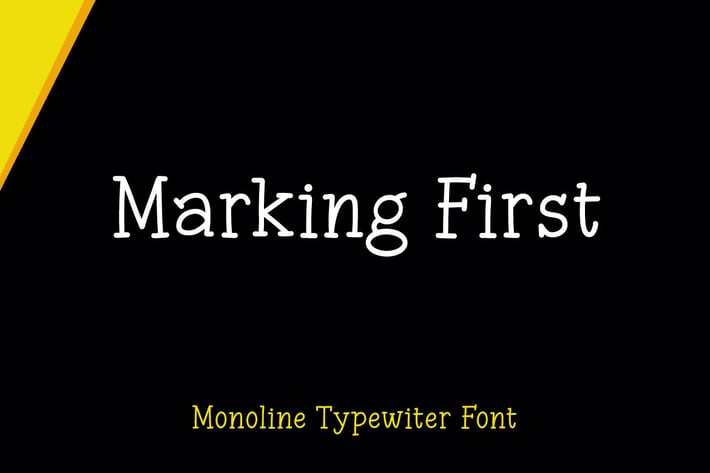
Marking First - Monoline Typewriter Font
Hello! Marking First is a simple handwritten font.
Marking First can be used in any works such as flyer, book title, advertisement, social media content, logo and many more.